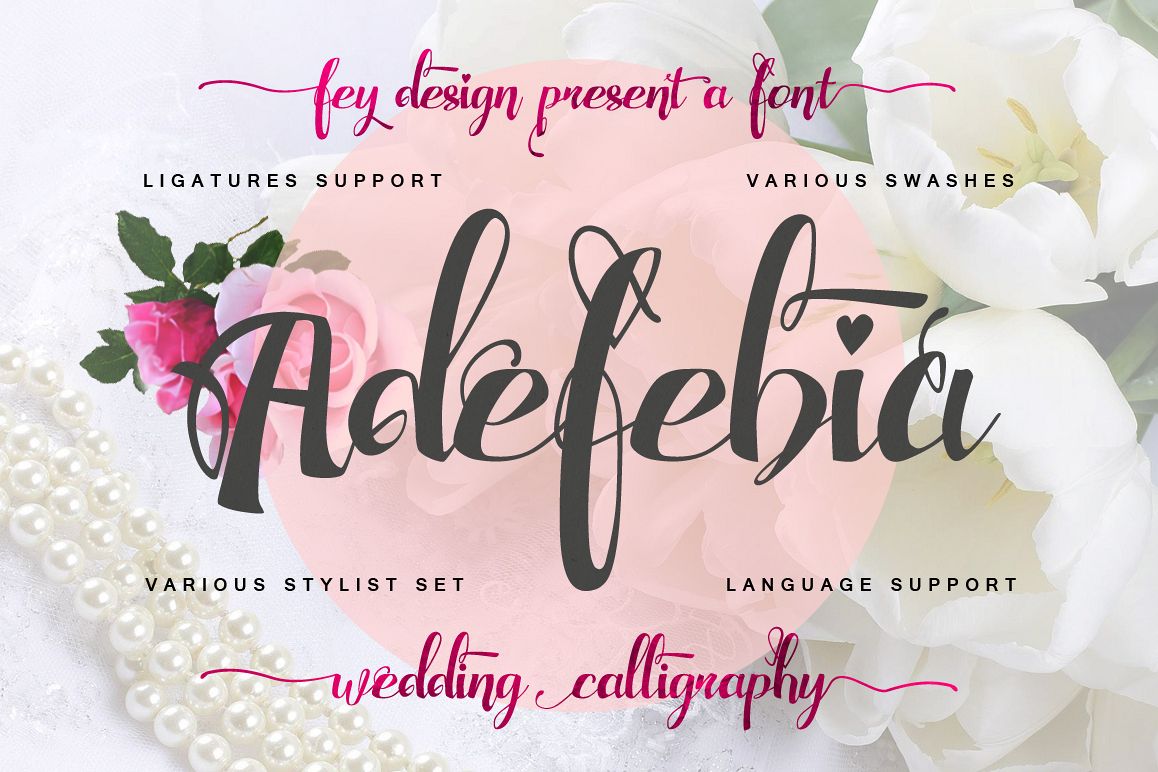
Adefebia Wedding Script Font
Adefebia Left Swashes.
Adefebia Right Swashes.
Adefebia.
Suitable for design, element design, wedding, event, t-shirt, logo, badges, sticker, and awesome work, etc...
- Combination alternative ligature fonts
- Standard Ligatures, Stylistic Set, Multilanguage Characters
- Modern Calligraphy Typeface
- Unique style fonts
- Easy customize
- Ready to use "Adefebia" for Awesome Work